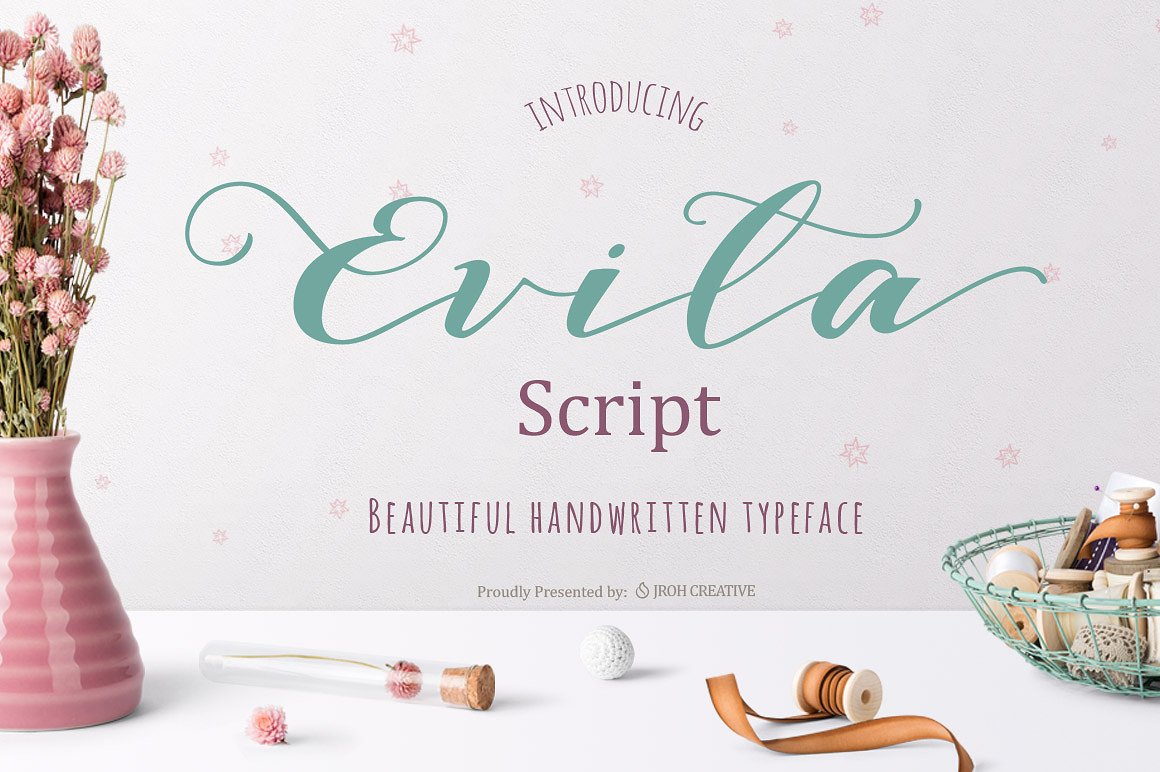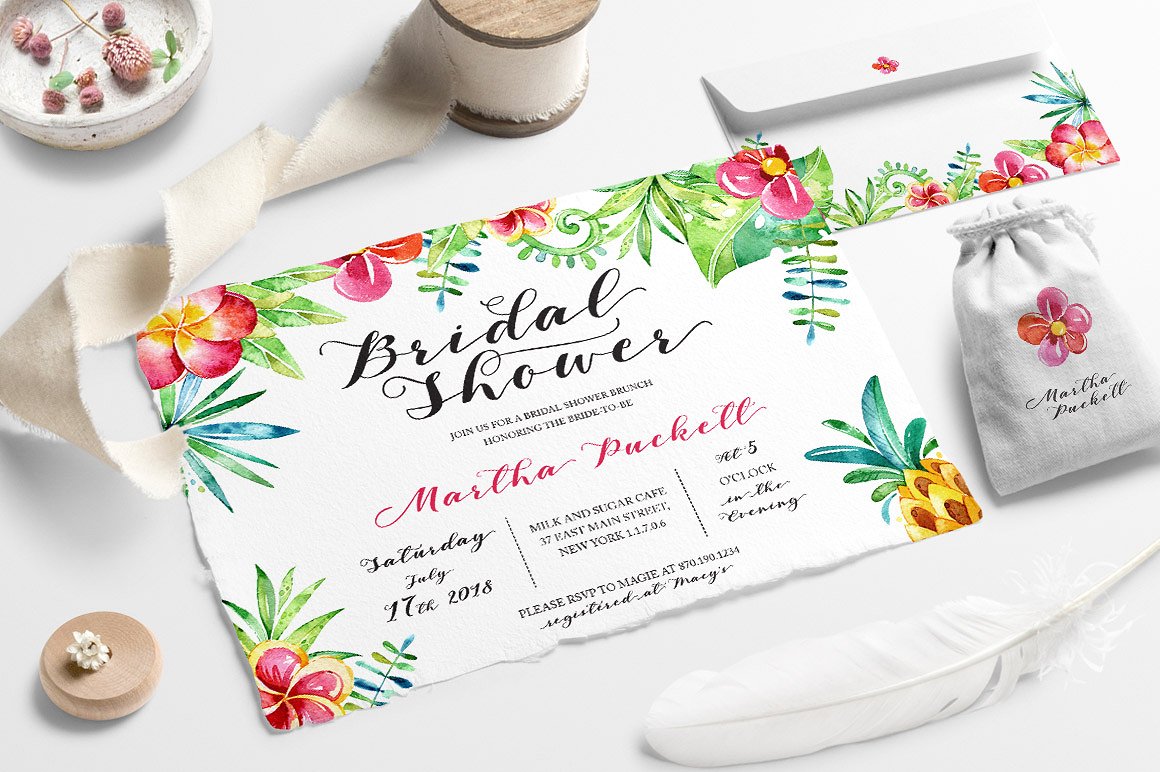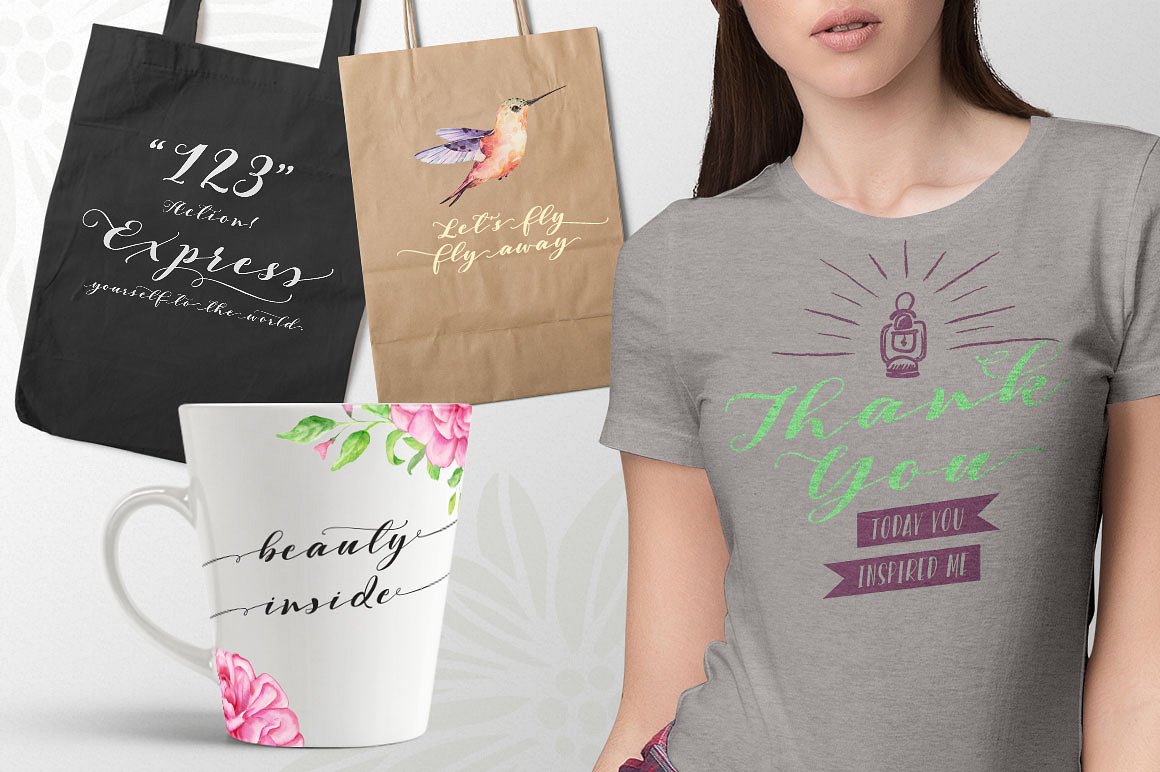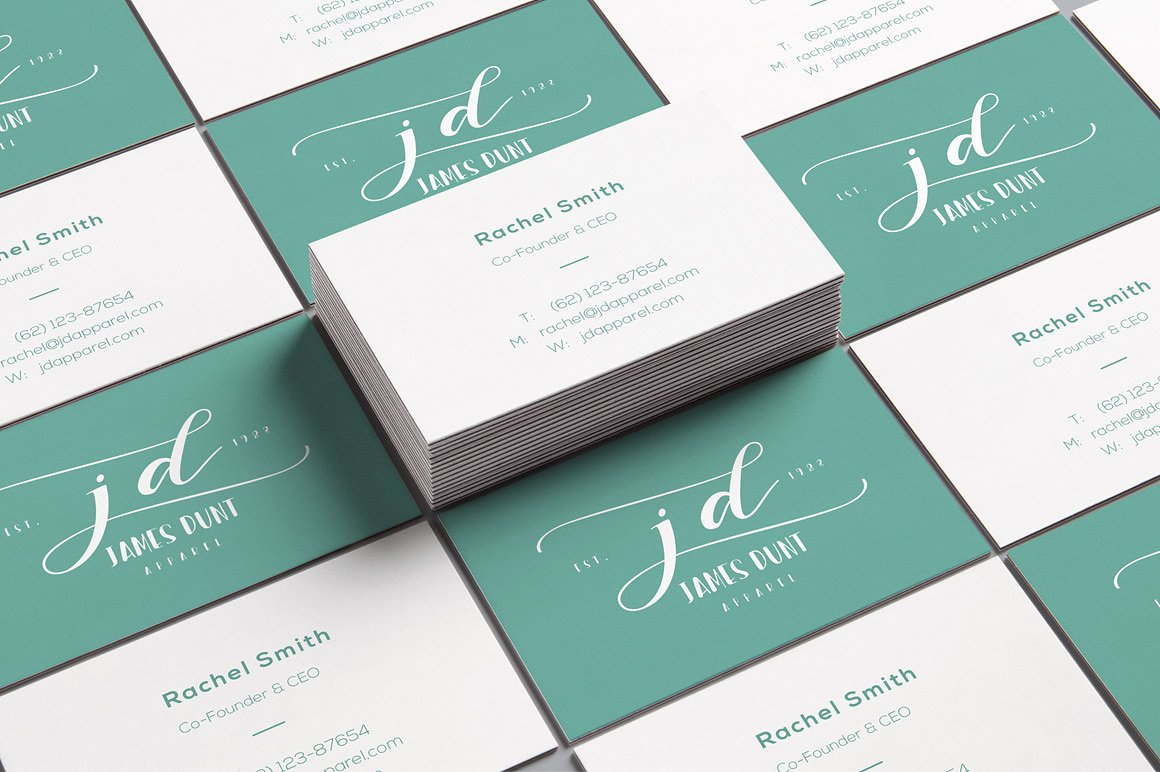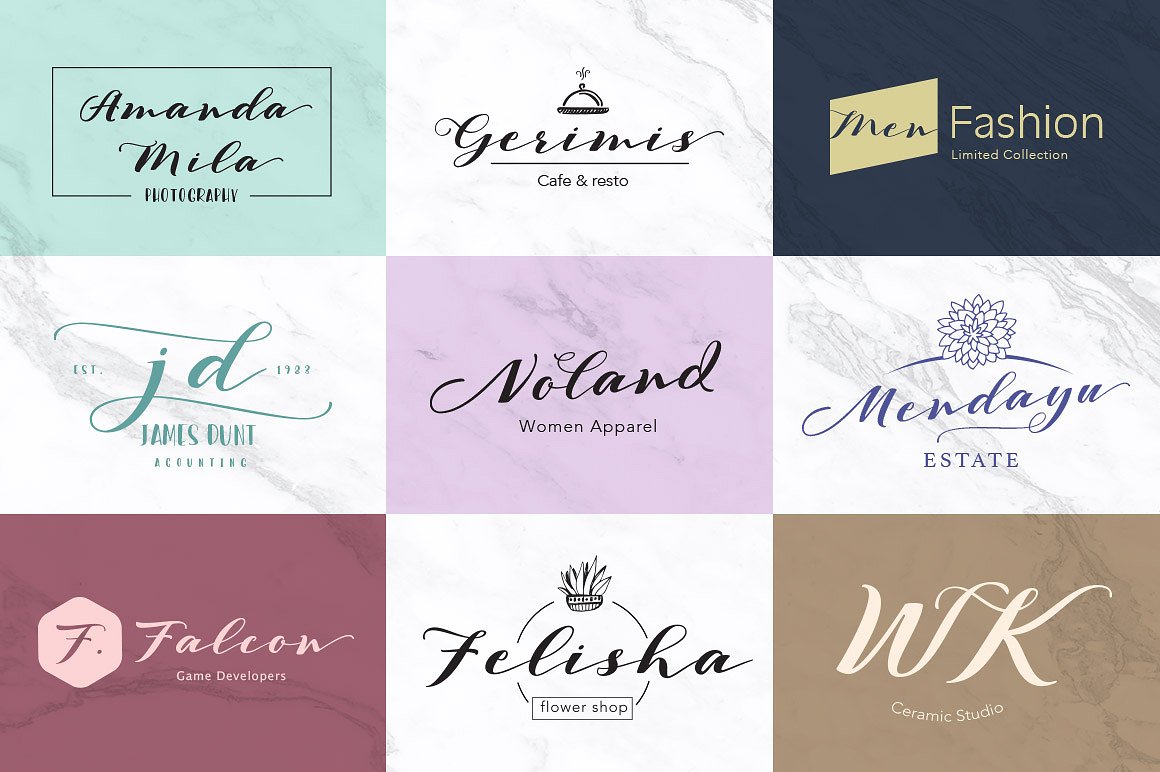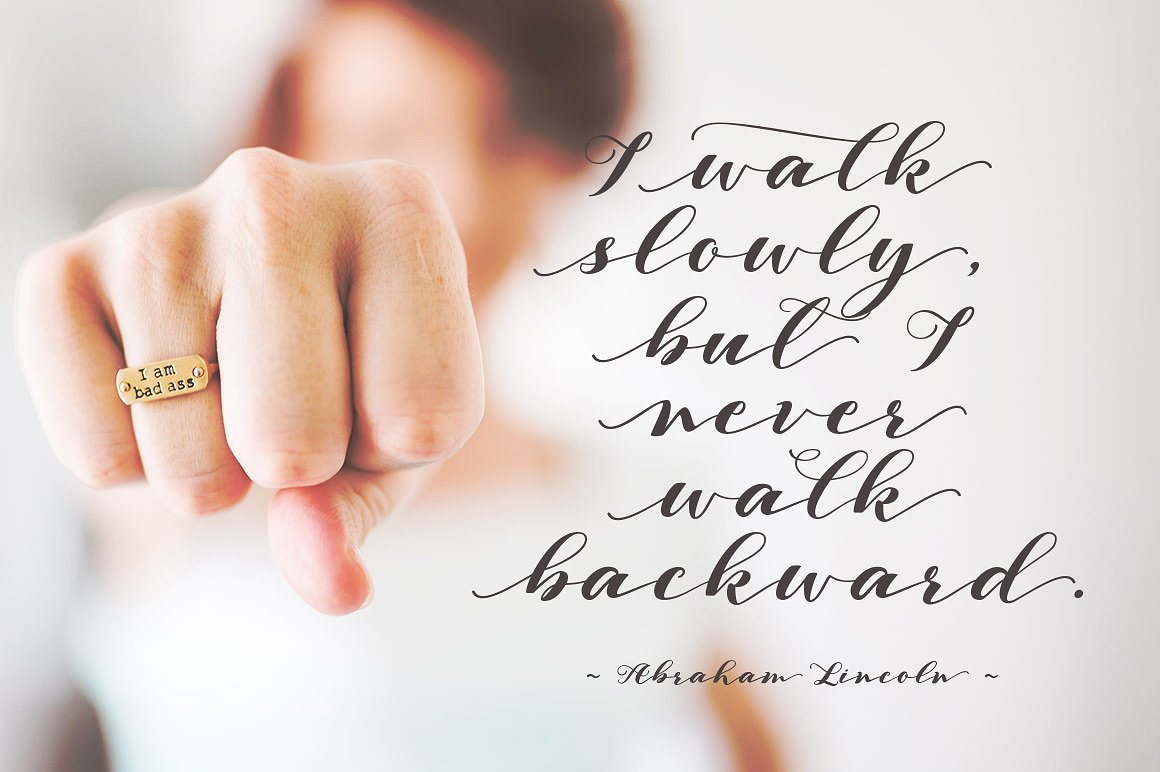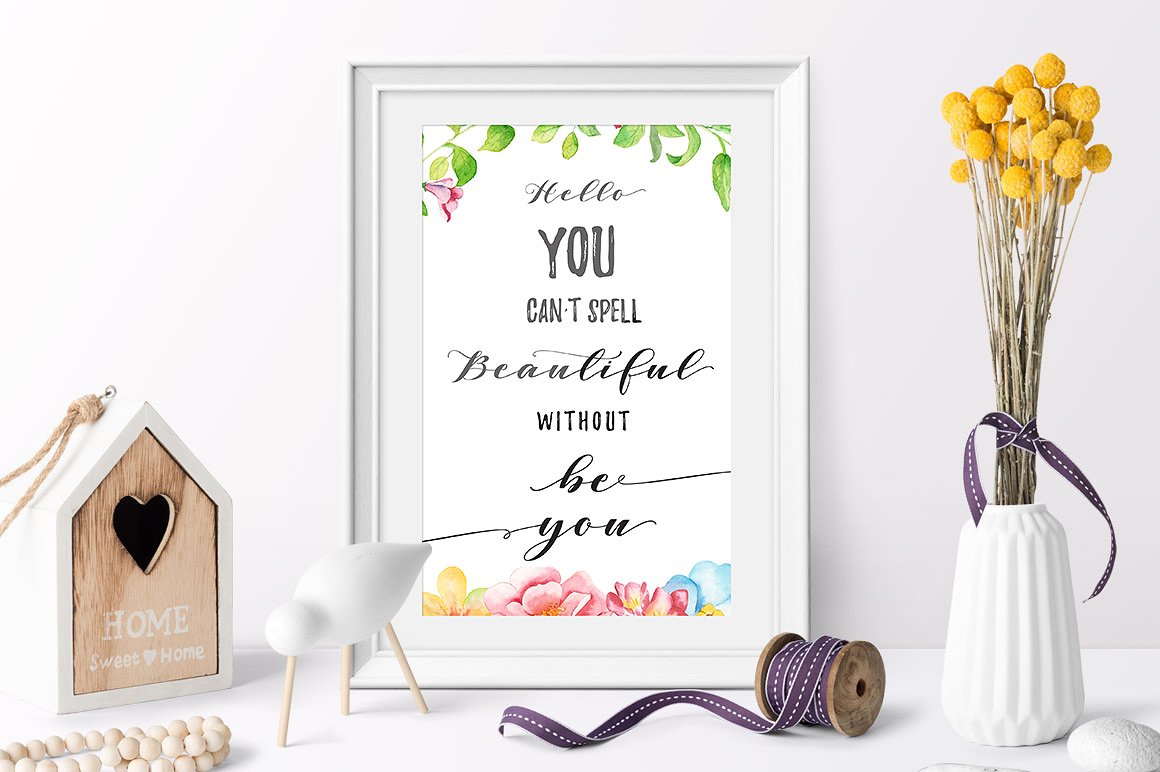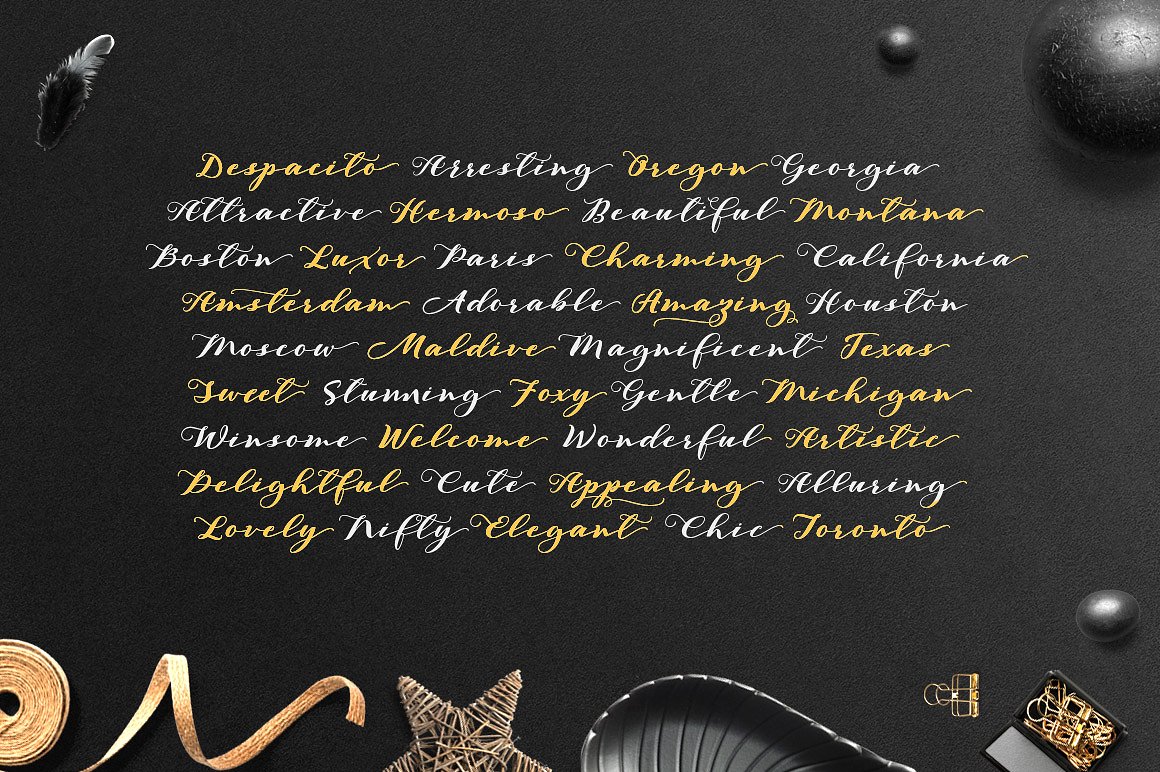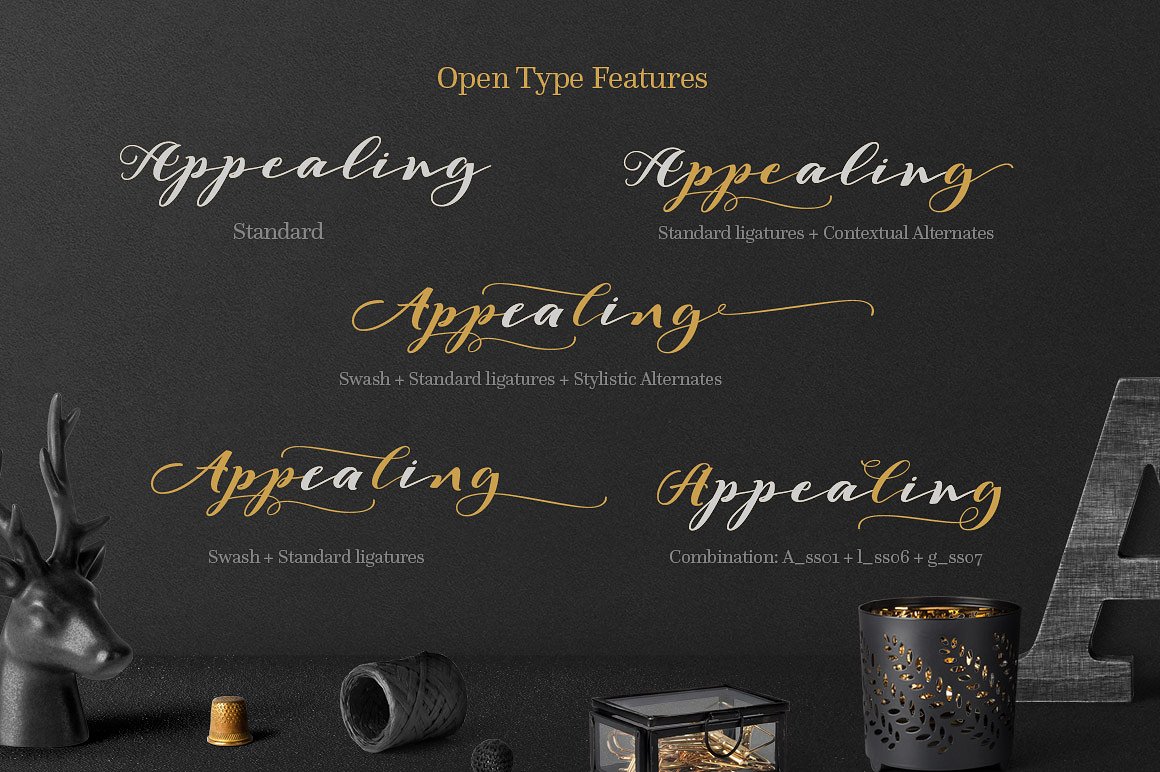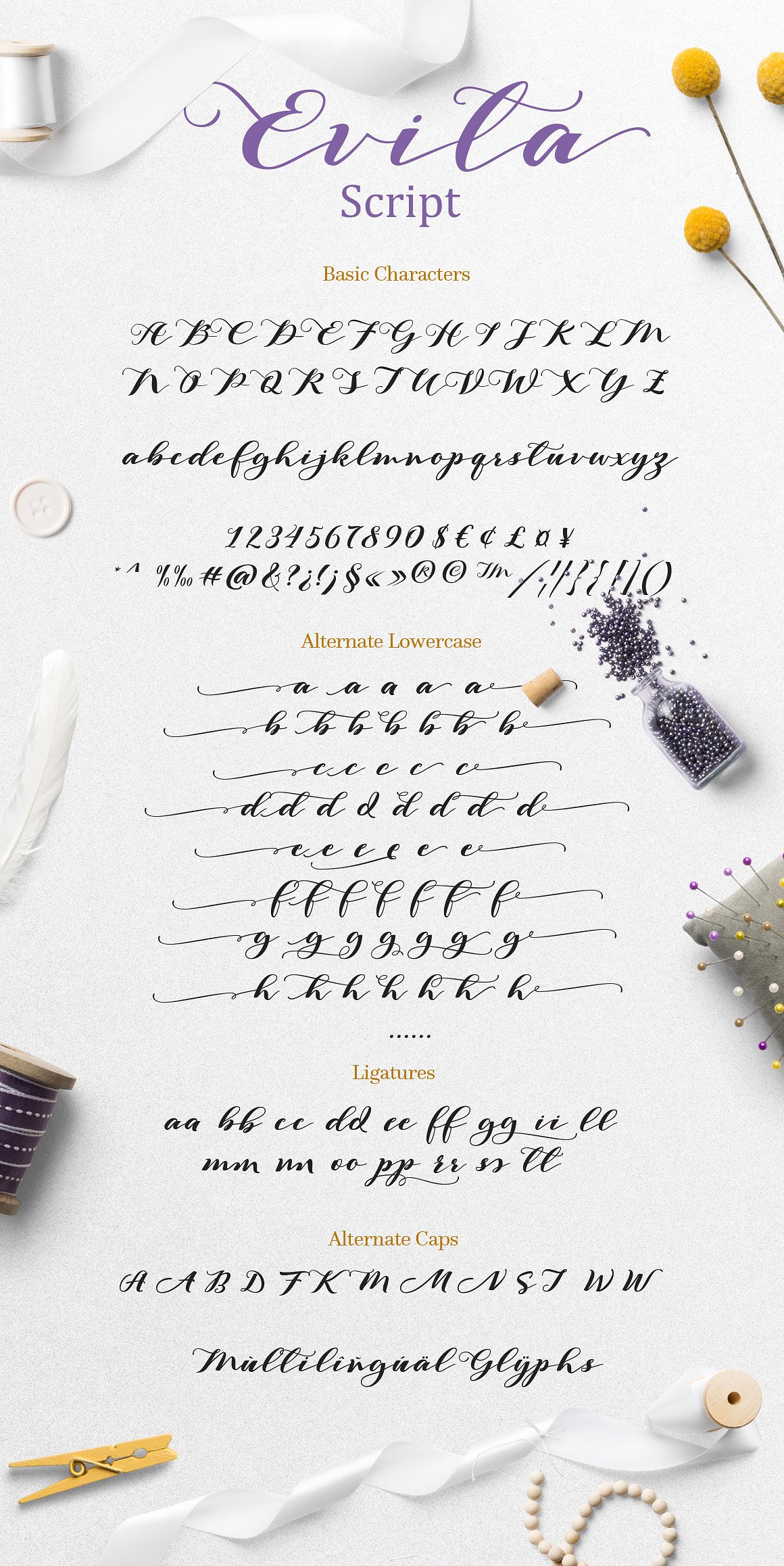
HomeScript FontsEvita Font Script Fonts Evita Font FacebookXPinterestWhatsApp Evita Font Poster 2 Evita Font Poster 3 Evita Font Poster 4 Evita Font Poster 5 Evita Font Poster 6 Evita Font Poster 7 Evita Font Poster 8 Evita Font Poster 9 Evita Font Poster 10 About Evita Font Evita is a fun, playful script that is suitable for many types of different projects. DOWNLOAD ON CREATIVE FABRICAThis font is sold and delivered by Creative Fabrica. Font Canyon may earn a commission if you buy through this link. People also explored Western Font Gyroscope Font Little Cupcake Font Appraised Font The Peanut Font Alitta Font Canaveral Sans Font Mallicot Font Hiking Font 349 0 TagsEvita Font Previous articleSweet Jasmine FontNext articleDensfort Font LEAVE A REPLY Cancel reply Comment: Please enter your comment! Name:* Please enter your name here Email:* You have entered an incorrect email address! Please enter your email address here Website: Save my name, email, and website in this browser for the next time I comment. Personal Use Free Cute Messy Personal Use Free Read more about this font Dimensional Look71 Personal Use Free Read more about this font Rosebirth Personal Use Free Read more about this font Fuixg Personal Use Free Read more about this font BLOG Best Fonts for YouTube Videos: Make Your Thumbnails Stand Out Best Fonts for YouTube Videos: Make Your Thumbnails Stand Out Choosing the right font can make a massive difference in how your YouTube videos perform.... Fonts That Capture the Spirit of New York City Transform Your Website: Elevate Your Typography with 7 Best Web Font Generators Top 10 Handwritten Fonts That Elevate Your Designs